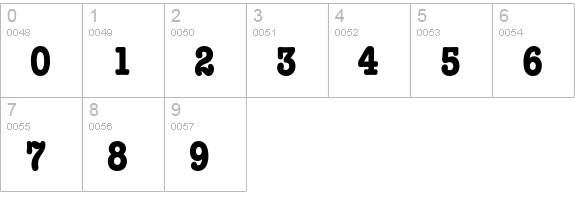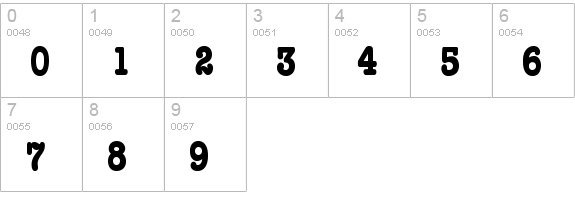
American Typewriter* Bold Condensed Font Details
American Typewriter* Bold Condensed is a strong, high-contrast, condensed-width variant in the American typeface family \xE2\x80\x94 well suited to headlines, attention-grabbing titles, and strong calls-to-action.
American Typewriter Bold Condensed font is a modern and sophisticated typeface that exudes a sense of strength and professionalism. Its bold and condensed design makes it perfect for creating impactful headlines, titles, and branding materials. The clean lines and sharp edges of this font convey a sense of precision and structure, making it ideal for projects that require a strong visual impact. What sets American Typewriter Bold Condensed font apart is its versatility - it can be used for a wide range of design projects, from print materials to digital content. Whether you're designing a poster, a logo, or a website, this font will help you achieve a polished and professional look. The best part about American Typewriter Bold Condensed font is that it is available for free download at FontsMarket.com. This means that you can start using this high-quality font in your projects right away, without having to worry about any licensing fees. Don't miss out on the opportunity to enhance your designs with the timeless elegance of American Typewriter Bold Condensed font - download it for free today!